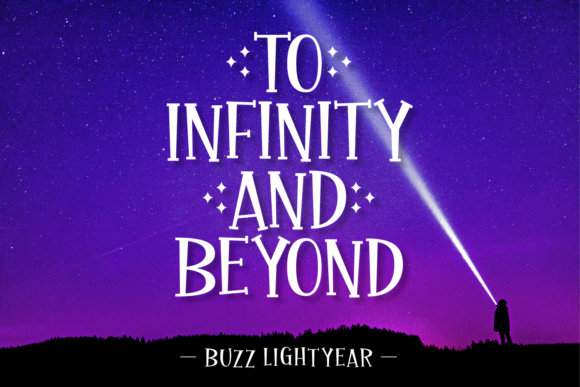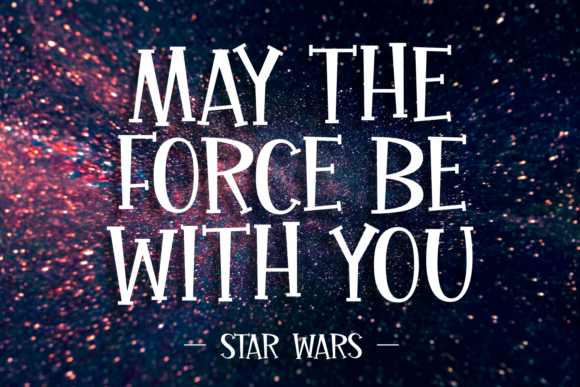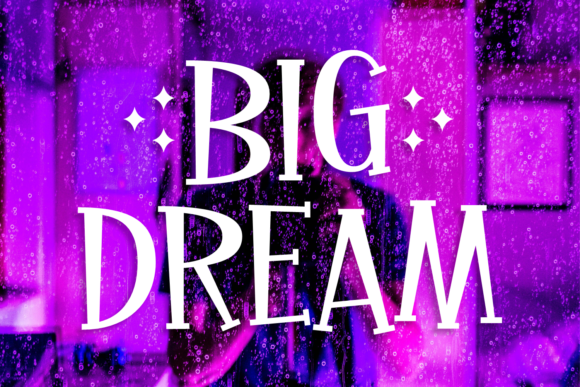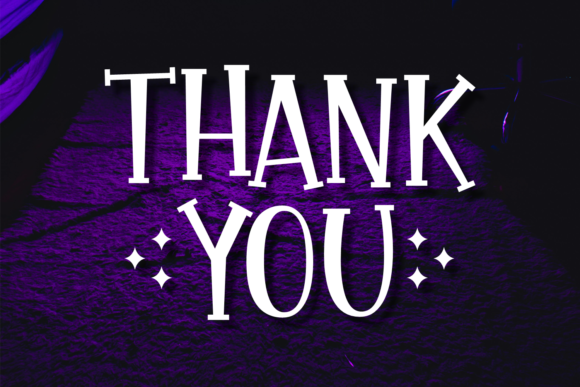
Introducing Beautiful Moonlight Font: A Charming and Playful Serif Font
Are you tired of using the same old fonts for your designs and crafts? Look no further! Beautiful Moonlight Font is a delightful and playful serif font that is sure to capture your heart. With its charming and whimsical feel, this font is perfect for a variety of projects, from digital designs and presentations to crafts and greeting cards.
A Versatile Font for All Occasions
Beautiful Moonlight Font is a versatile font that can be used for a wide range of projects. Whether you’re a designer, crafter, or simply someone who loves to create, this font is sure to become your go-to choice. Its playful and charming feel makes it perfect for:
- Crafts: Use Beautiful Moonlight Font to add a personal touch to your handmade crafts, such as scrapbooking, card making, and journaling.
- Digital Design: Add a touch of whimsy to your digital designs, such as social media graphics, blog posts, and website headers.
- Presentations: Make your presentations stand out with Beautiful Moonlight Font, perfect for titles, headings, and emphasis text.
- Greeting Cards: Create beautiful and unique greeting cards for special occasions, such as birthdays, holidays, and weddings.
What Makes Beautiful Moonlight Font So Special?
So, what sets Beautiful Moonlight Font apart from other fonts? Here are just a few features that make it so special:
- Playful and Charming: Beautiful Moonlight Font has a playful and charming feel that’s sure to capture your audience’s attention.
- Serif Font: The serif font style adds a touch of elegance and sophistication to your designs.
- Easy to Read: The font is clear and easy to read, making it perfect for body text and headings.
- Highly Versatile: Beautiful Moonlight Font can be used for a wide range of projects, from digital designs to crafts and presentations.
Tips for Using Beautiful Moonlight Font
Here are a few tips for getting the most out of Beautiful Moonlight Font:
- Use it as a Title Font: Beautiful Moonlight Font is perfect for titles and headings, adding a touch of whimsy and charm to your designs.
- Pair it with Other Fonts: Experiment with pairing Beautiful Moonlight Font with other fonts to create a unique and interesting look.
- Use it for Emphasis Text: Use Beautiful Moonlight Font to add emphasis to important text, such as calls-to-action or key points.
| Font Name | Beautiful Moonlight Font |
| Author | Rizkky (7NTypes) |
In conclusion, Beautiful Moonlight Font is a charming and playful serif font that’s perfect for designers, crafters, and anyone who loves to create. With its versatile and whimsical feel, this font is sure to become your go-to choice for a wide range of projects. So why wait? Download Beautiful Moonlight Font today and start creating beautiful and unique designs that capture your audience’s attention!
- Playful and charming serif font
- Perfect for crafts, digital design, presentations, and greeting cards
- Easy to read and highly versatile
- Pair well with other fonts and colors
Whether you’re a seasoned designer or a crafty DIY enthusiast, Beautiful Moonlight Font is sure to delight. So go ahead, get creative, and make your designs shine with this beautiful and charming font!